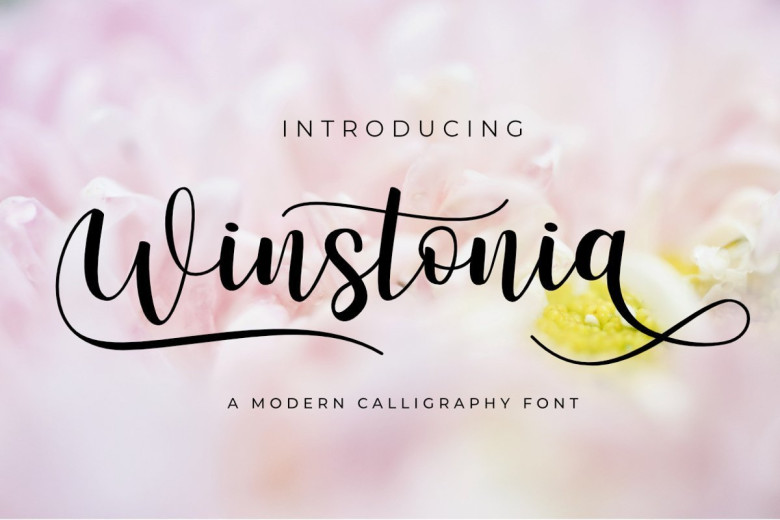
Winstonia Modern Calligraphy Font
Winstonia Font is a multipurpose modern calligraphy brush script, hand drawn, and created for designers. It includes lowercase script, swash alternatives, numerals, punctuation, and a broad array of language support.